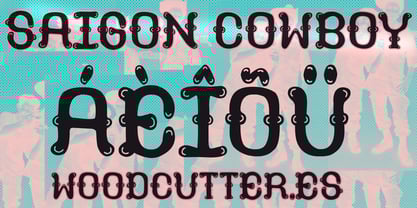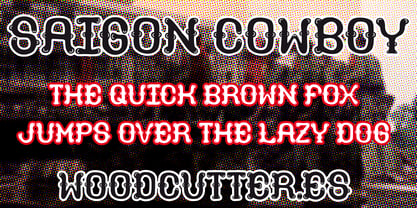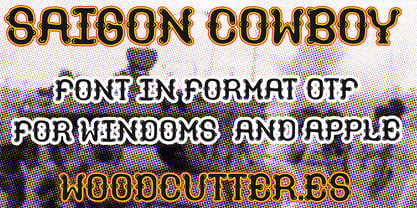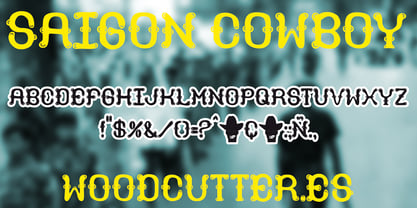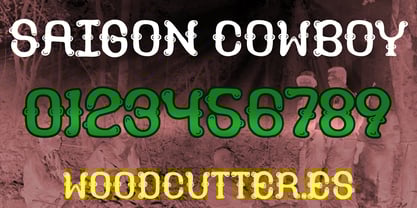
Saigon Cowboy
by Woodcutter
The Saigon Cowboy Font Family was designed by Jordi Manero and published by Woodcutter. Saigon Cowboy contains 2 styles and family package options. More about this family
Saigon Cowboy is an all-caps typeface with accents that blends the rugged spirit of the Wild West with a refined decorative twist. Inspired by classic cowboy aesthetics, this font includes subtle ornamental touches that add elegance without sacrificing its bold, adventurous character. Angular shapes, strong serifs, and a firm visual rhythm evoke vintage posters from rodeos, saloons, and Western films—yet with a contemporary and stylish upgrade.
The font family consists of two complementary styles:
Saigon Cowboy, the main version, features letters with small decorative details that add flair and personality, perfect for titles with a thematic and expressive tone.
Saigon Cowboy Black offers a heavier, more solid version with no ornamentation—ideal for high-impact design where strong presence and legibility are key.
Both styles work beautifully alone or together, offering flexibility in themed compositions, branding, packaging, signage, or editorial design that seeks a Western look with a touch of class. Saigon Cowboy combines strength, nostalgia, and elegance in a distinctive and bold typographic family.